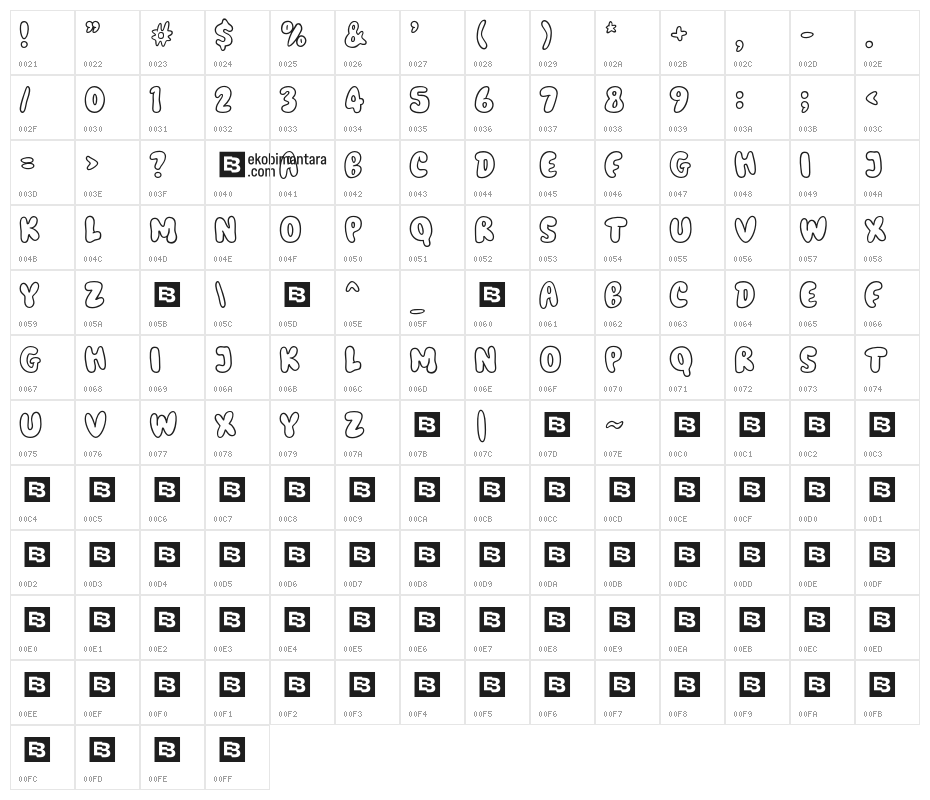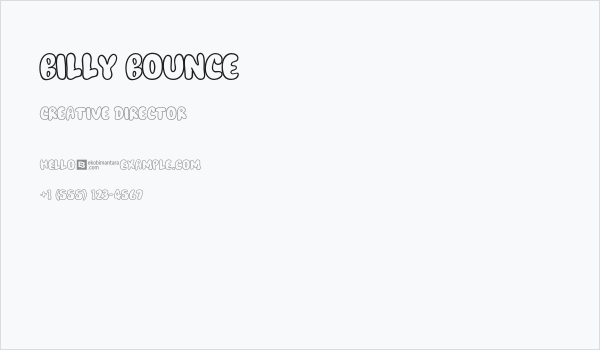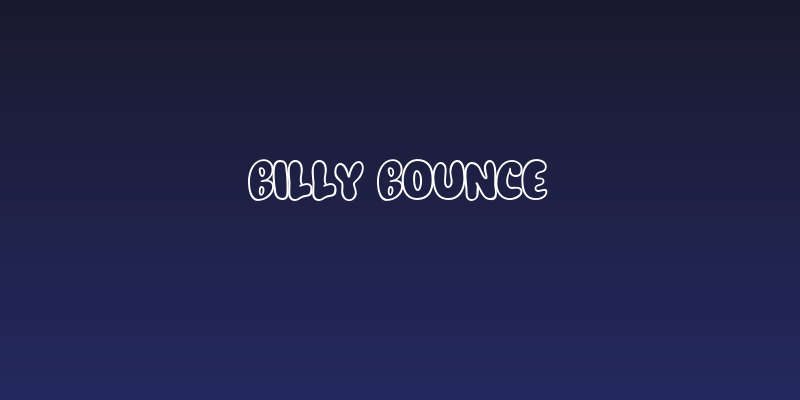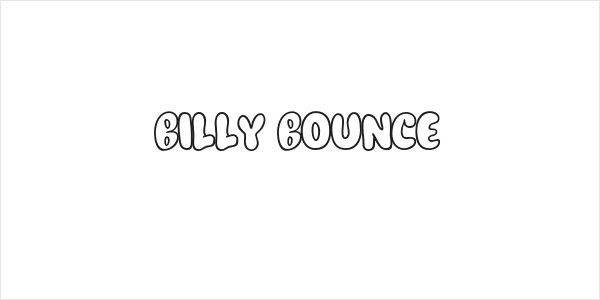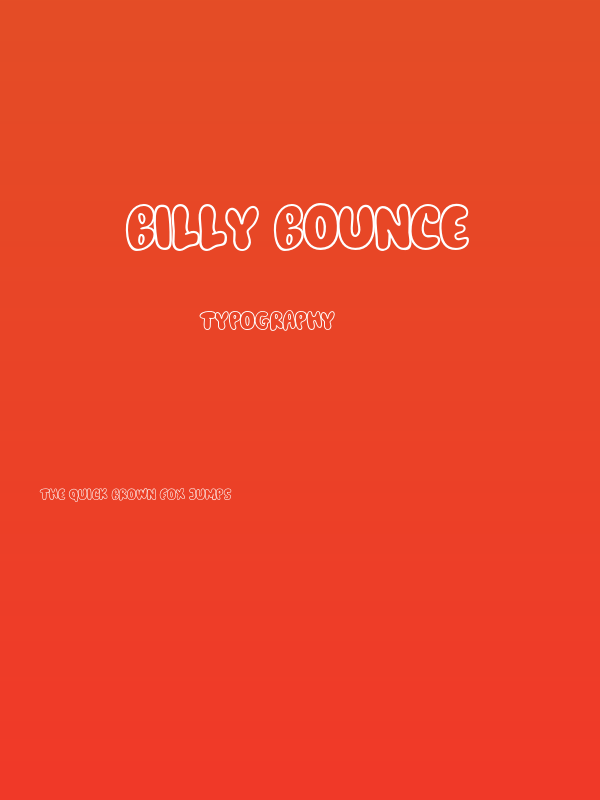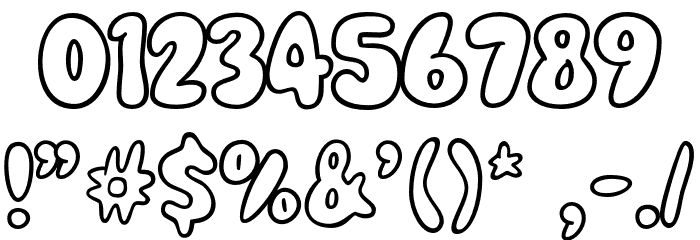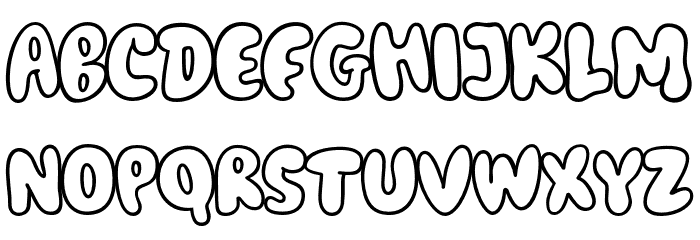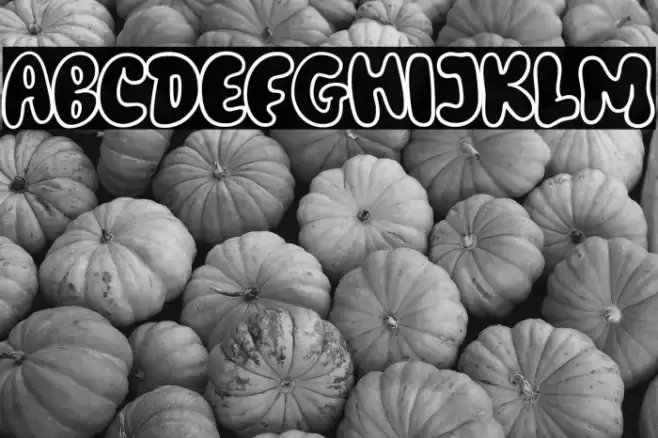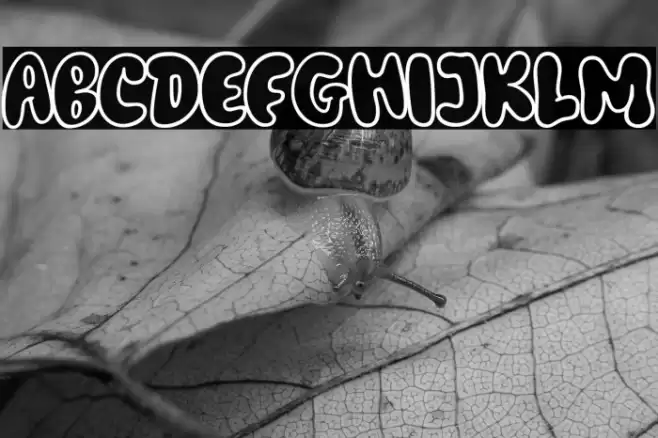
Billy Bounce Font
Billy Bounce Description
This playful and bouncy font features thick, rounded characters with a whimsical outline that gives it a cartoonish and fun appearance. The letters are bold and have a consistent stroke width, creating a uniform look across all characters. The font's design is characterized by its bubbly and inflated style, making it ideal for projects that require a lighthearted and cheerful touch. The numbers and special characters maintain the same playful aesthetic, ensuring a cohesive look throughout any text. Its unique style is perfect for capturing attention and adding a sense of joy and creativity to any design.
| Overall Style | Playful, Cartoonish |
| Proposed Projects | Ideal for children's books, playful branding, party invitations, and cartoon-themed designs. |